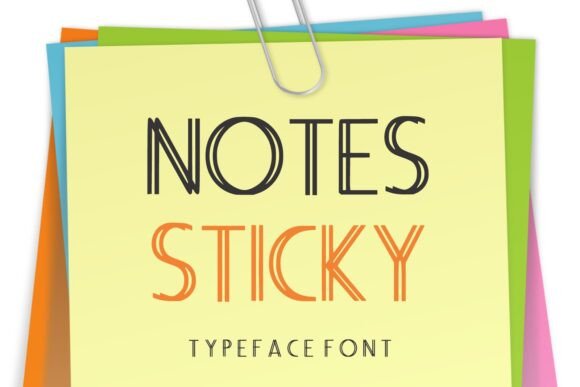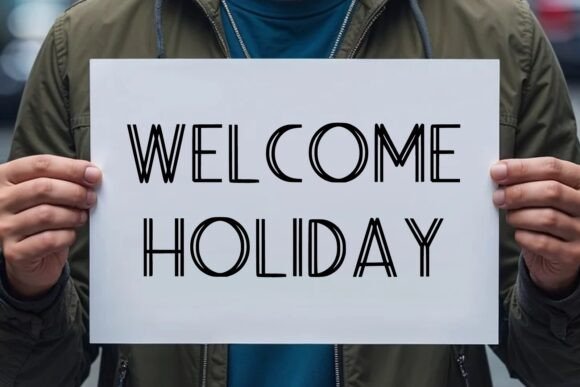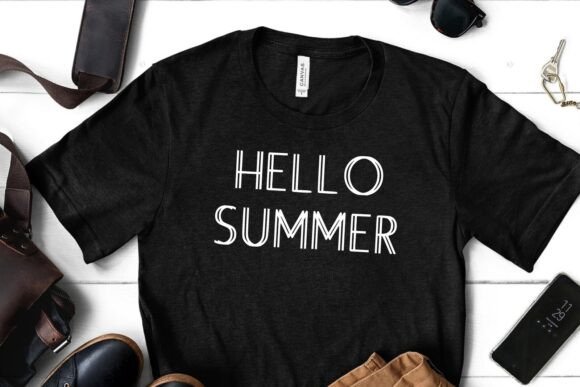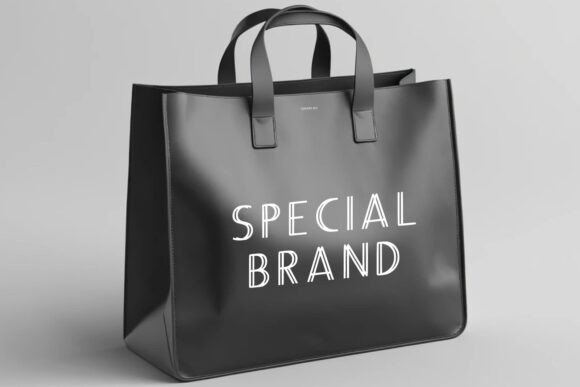
Notes Sticky Font
About the Notes Sticky Font
Discover the charm of Notes Sticky Font. This font is a perfect blend of modern aesthetics and classic appeal. Notes Sticky an uppercase font, simple, elegant, easy-to-read display font that conveys impeccable friendliness. Whether you’re using it for crafts, digital design, presentations, or greeting cards, this font has the potential to become your favorite go-to font, no matter the occasion!
Notes Sticky excels in headline applications, short text blocks on posters or packaging, and branding elements where a friendly yet sophisticated aesthetic is desired. Its legibility shines in larger sizes, making it ideal for signage or short marketing messages. However, its limited character set and uppercase-only nature make it unsuitable for body text or lengthy paragraphs, as well as user interface elements requiring diverse glyphs.
The font’s personality is best described as friendly and approachable, with an underlying elegance. It would be a strong choice for brands targeting a youthful or family-oriented audience, or for projects emphasizing craft, warmth, or handmade aesthetics.
Pairing Notes Sticky with a clean sans-serif like Open Sans for body copy provides a balanced and readable combination. Alternatively, a classic serif like Garamond could add a touch of traditional sophistication, while a playful script font would offer a contrasting yet harmonious pairing depending on the specific design needs.
Notes Sticky Font Usage Examples
Notes Sticky Font Example